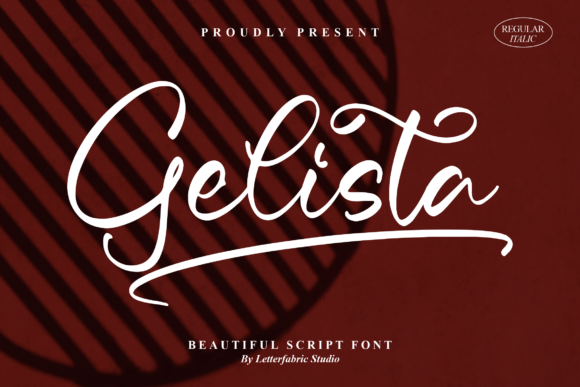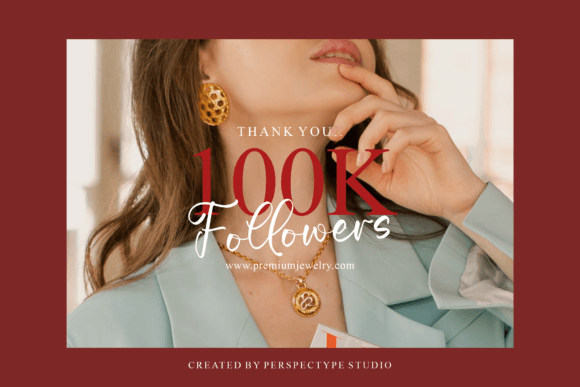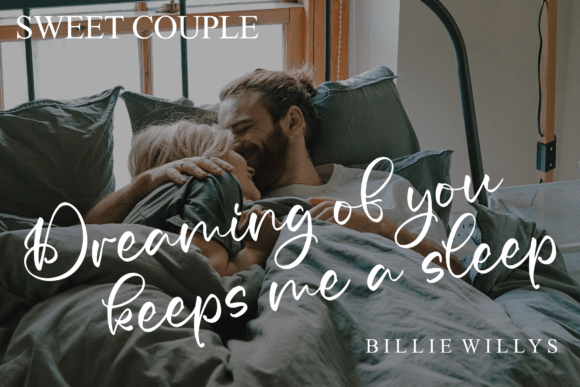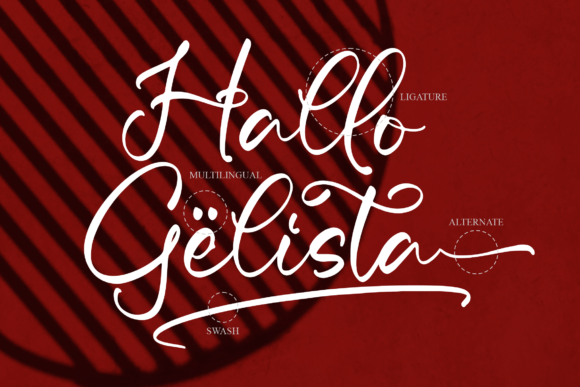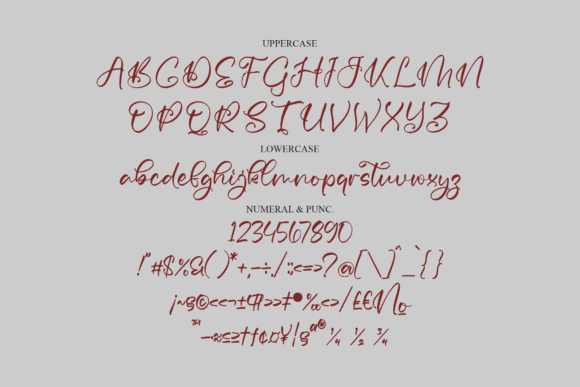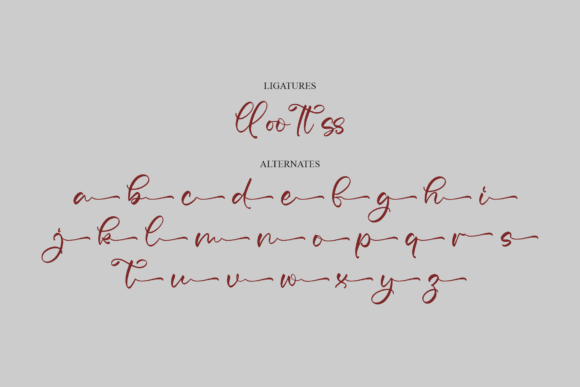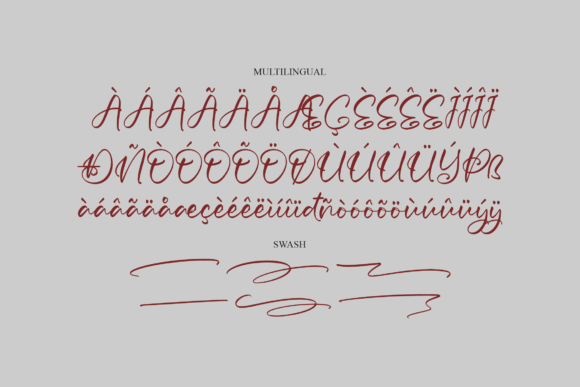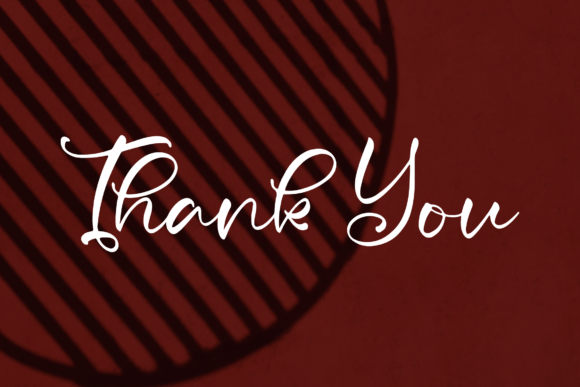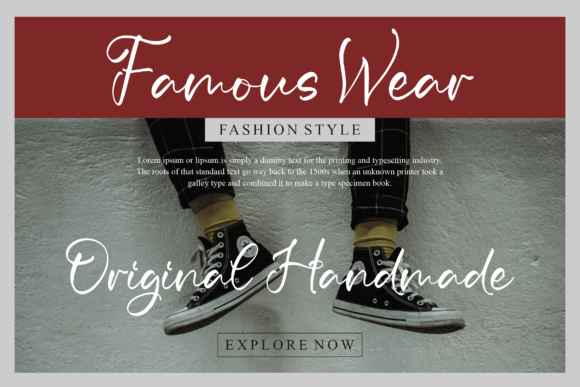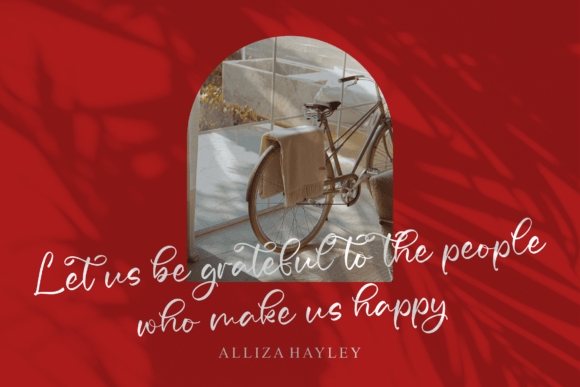
Gelista Font
About Gelista Font
Introducing Gelista, a beautiful and refined script font that exudes a classy, elegant, and modern aesthetic. This versatile typeface is designed to elevate various creative projects, making it a perfect choice for logos, branding, invitations, stationery, wedding designs, social media posts, and beyond.
Gelista’s beauty lies in its balanced and sophisticated design, making it suitable for a wide range of applications. The script font carries an inherent sense of class and elegance, making it an ideal choice for projects that require a touch of refinement.
Consider using Gelista for logos, where its classy and modern look can create a strong visual identity for your brand. Picture it on wedding invitations, adding an elegant touch to the celebration. Envision it on stationery, creating a cohesive and sophisticated brand presence.
The modern and refined nature of Gelista makes it adaptable to social media posts, allowing you to communicate with your audience in a stylish and engaging manner. Whether you’re designing for print or digital platforms, Gelista ensures your content stands out with a timeless charm.
In summary, Gelista is more than just a font; it’s a design asset that brings beauty and sophistication to your projects. Its versatility allows it to seamlessly integrate into various applications, from branding to social media, adding a touch of modern elegance. Let Gelista be the refined and beautiful script that enhances your creative endeavors with a timeless and classy aesthetic.